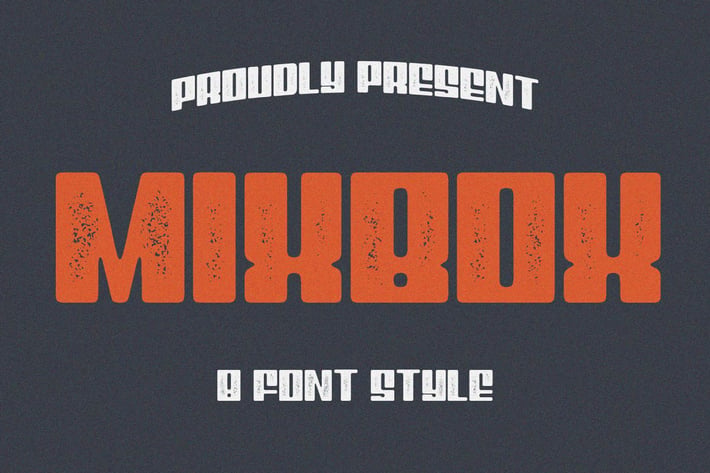
8 Font - MixBox Font Family
Mixbox is a bold retro display font family built for logos, sports branding, apparel graphics, and high impact visual design. With 8 distinct styles spanning clean, rounded, rough, and stamp variants each available in regular and italic, Mixbox gives designers unmatched flexibility to dial in exactly the right look for every project.
- 8 font styles: Clean, Rounded, Rough, Stamp each in Regular and Italic
- Bold condensed block letterforms with strong visual impact
- All uppercase design with numerals and punctuation
- Multilingual support with extended Latin characters